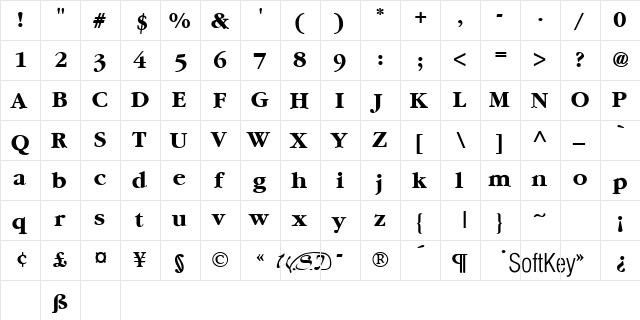
Amethyst Bold Bold
Design Context for Amethyst Bold Typeface
Amethyst Bold offers clean, dependable letterforms without strong stylistic allegiance, making it a practical choice for designers who need flexibility. The heavy weight commands attention and anchors typographic hierarchies.